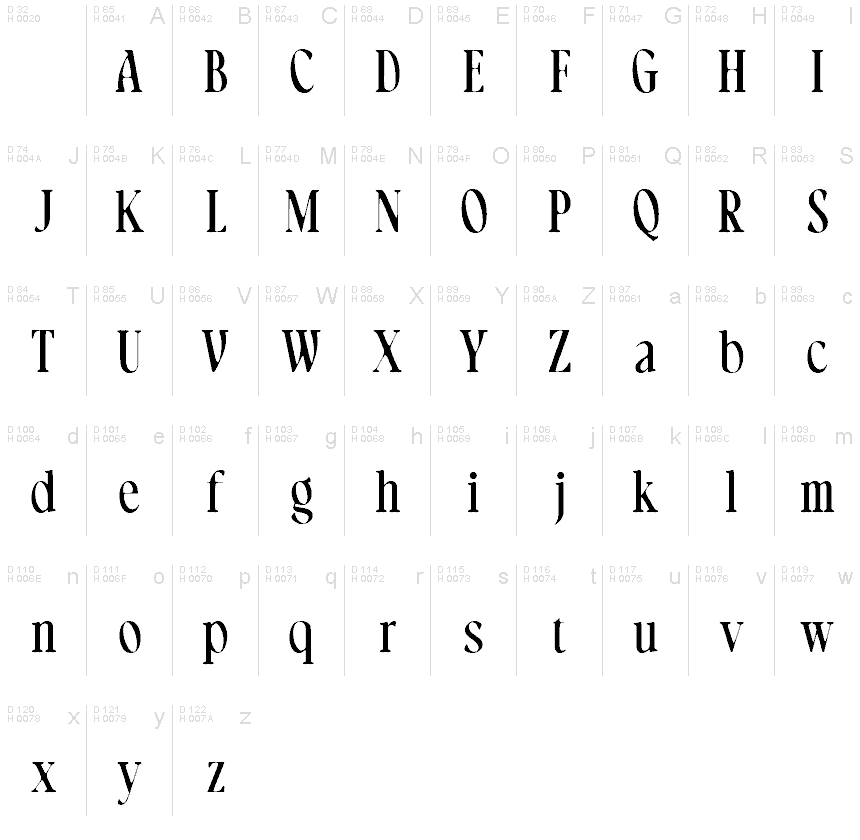
CSHadwinDrawn-Regular Demo
CS Hadwin Drawn font is a free condensed serif font designed by Craft Supply Co. The font is elegant and refined with professional and sophisticated tone. This stylish typeface is the perfect definition of quality & class provided by orderly finishes created from traditional influences but without losing its conventional presence.